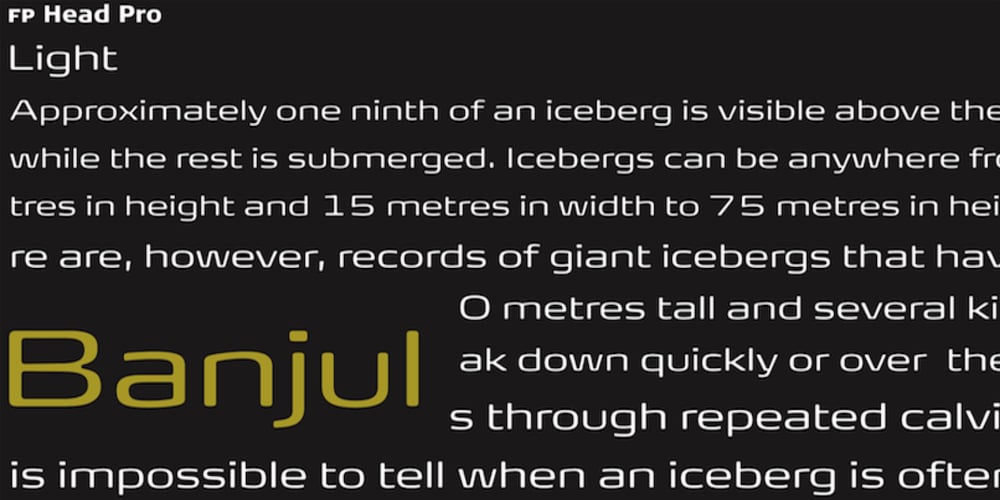
FP Head Pro Font Family was designed by Morten Rostgaard Olsen and published by Fontpartners. FP Head Pro contains 10 styles and family package options. Architectural yet human, as if the letter forms had been delicately carved in stone; their rounded stroke edges and corners lovingly eroded by the surf of the Baltic Sea; slightly overexposed, radiating comforting warmth, giving the impression one was looking at the characters against the setting sun. FP Head Pro reviewed by Yves Peters and Typographica.org: One of the most noteworthy typefaces for 2008.